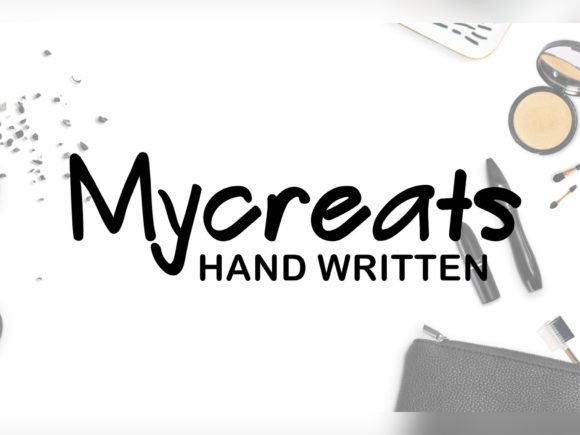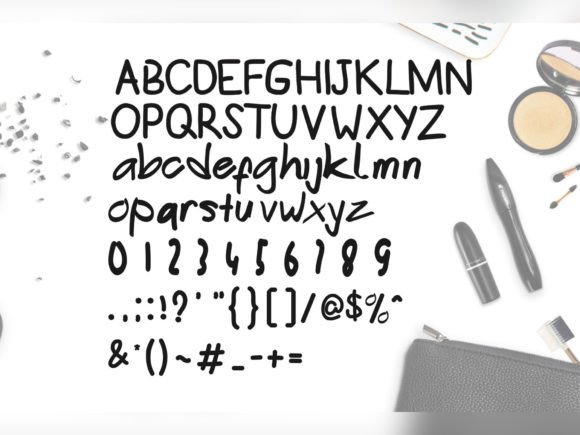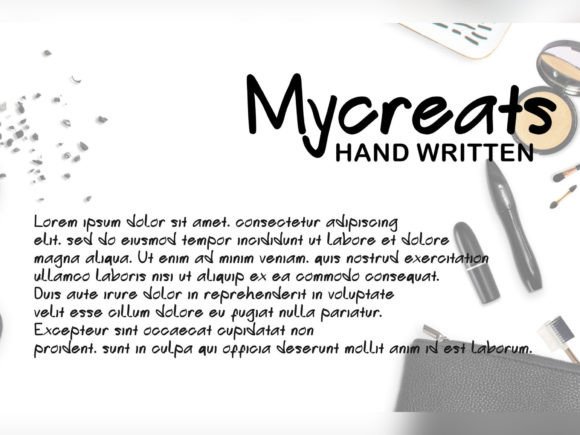
Mycreats Font
Mycreats Font : A Charming Hand-Drawn Script Font
Mycreats is a delightful hand-drawn script font that combines simplicity, cuteness, and fun in one versatile typeface. This font is perfect for a wide range of creative applications, from branding to digital content creation.
Key Features of Mycreats Font
• Simple Hand-Drawn Style: Adds a personal and approachable touch to your designs
• Cute and Fun Character: Brings a playful element to your projects
• Versatile Application: Suitable for logos, magazines, social media, and more
Perfect for Multiple Design Projects
Mycreats’ adaptability makes it an excellent choice for:
• Logo design and branding
• Magazine layouts and editorial design
• Social media graphics and digital content
• Brochure and marketing materials
• Packaging design for fun and approachable products
Enhancing Your Creative Vision
With Mycreats, you can infuse your designs with a sense of authenticity and approachability. Its hand-drawn style adds a personal touch that resonates with audiences, making your content more engaging and relatable.
Digital Design Applications
In the digital realm, Mycreats shines by adding a friendly and approachable feel to your content. Use it for:
• Engaging social media posts
• Eye-catching blog headers
• Unique email marketing campaigns
• Distinctive website designs for creative professionals
Mycreats is more than just a font; it’s a creative tool that brings simplicity, cuteness, and fun to your design projects. Its hand-drawn script style makes it suitable for a wide range of applications, from professional branding to casual social media content. By incorporating Mycreats into your designs, you can create visually appealing and memorable content that engages your audience. Whether you’re a professional designer or someone looking to add a personal touch to your projects, Mycreats offers the perfect blend of charm and functionality. Consider pairing Mycreats with clean sans-serif fonts for contrast or complementing it with other script fonts for a dynamic typographic palette. This versatility allows you to create designs that are both playful and harmonious across various mediums and industries. Embrace the charming simplicity of Mycreats today and watch as it transforms your creative ideas into engaging and approachable designs. Add this fun hand-drawn script font to your collection and experience the difference it makes in enhancing your projects with its cute and captivating style!